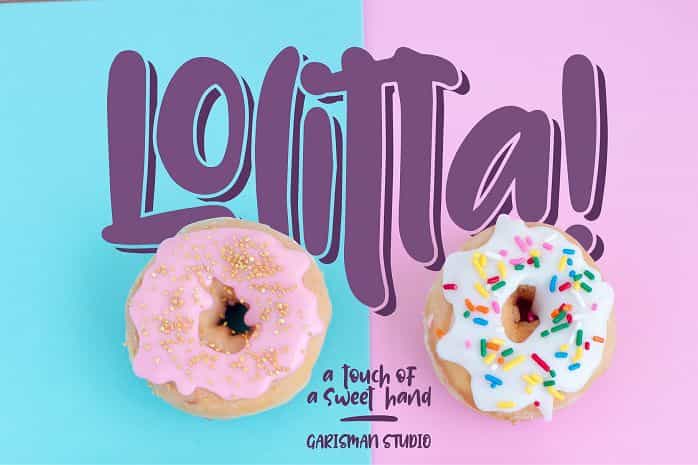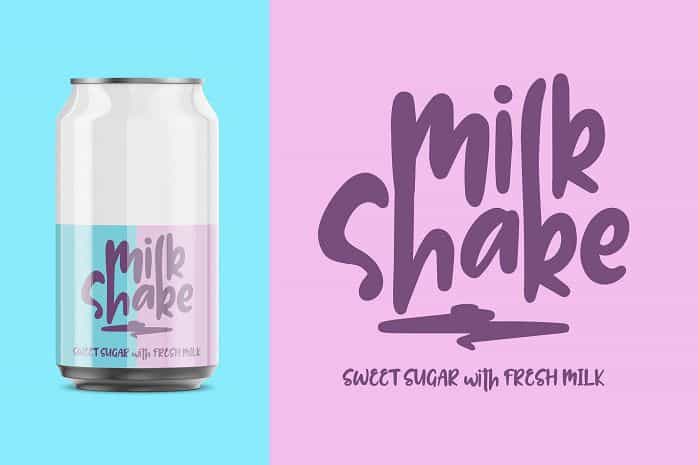
Discover Lolitta Fun Display Font, part of the Brush Comic Graffiti collection—a versatile and unique font perfect for adding a personal touch to your projects. Download it for free and enjoy crafting designs with style, from invitations to social media posts. This font is available exclusively for personal use, giving you the freedom to create without limits. Unlock your creativity with Lolitta Fun Display Font today!
Lolitta Font – A soft and sweet hand font. Hoolegan was created and shared by Garisman Std. LOLILTA is a square and fun display font. It makes us all happy and it brings joy to our lives. It is this marker that serves as an inspiration for the bold and fun mark with a strong style. This font is the best for display, text, print, branding and signage with a set of optimal characters that you can use to design any layout.